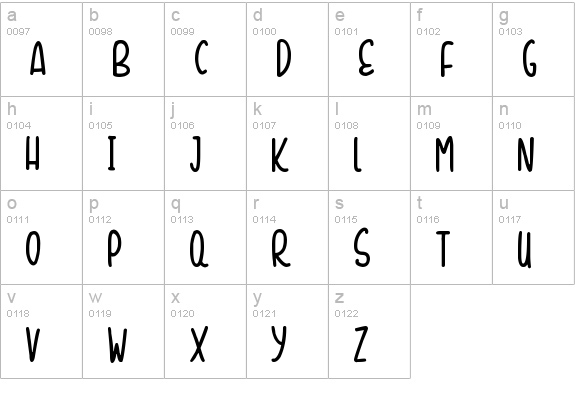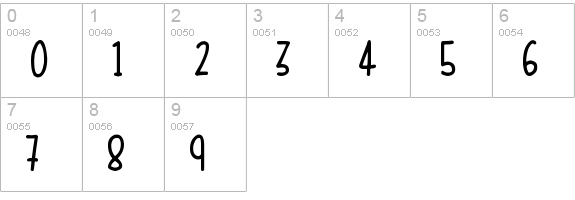
Sunshine Smiles Font Details
Sunshine Smiles is a free for personal use font in the Script > Handwritten category, designed by Darrell Flood. It has been downloaded 63 times and is available for Windows, Mac and Linux.
Sunshine Smiles font is a delightful and cheerful typeface that is sure to bring a ray of sunshine to your designs. With its playful curves and whimsical style, this font exudes a sense of warmth and positivity. Perfect for adding a touch of joy to various projects, from greeting cards to social media graphics.